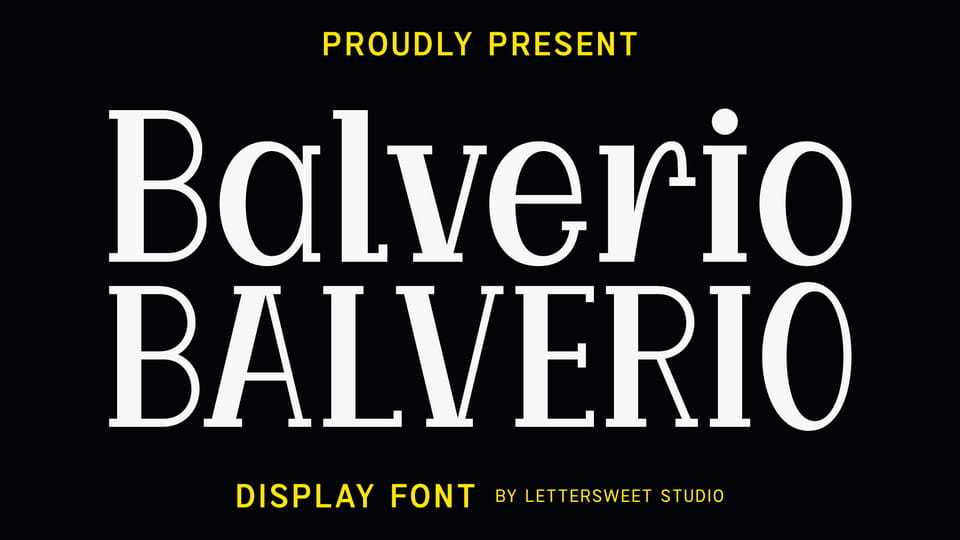
Download Balverio font, an elegant display serif typeface designed to deliver a strong, premium, and timeless visual presence. Its refined contrast, sharp details, and balanced proportions make it perfect for designs that demand attention and authority.